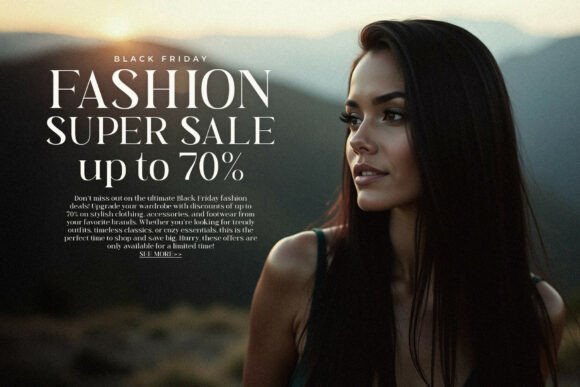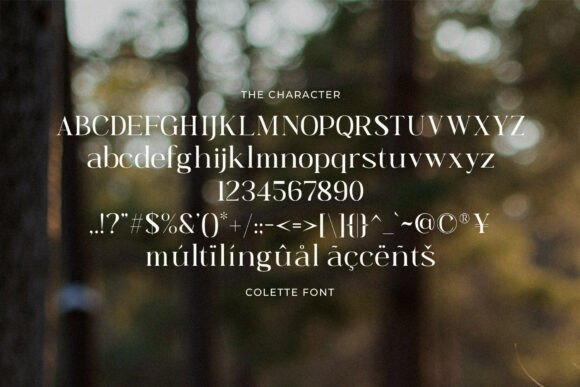
Colette Font: Elevate Your Design with Modern Elegance and Timeless Charm
In the world of typography, fonts play a crucial role in conveying the tone and personality of a brand or design. Among the numerous typefaces available, the Colette font stands out for its unique blend of modern sophistication and classic elegance. This beautiful serif typeface has been gaining popularity among designers and crafters for its ability to add a touch of refinement and professionalism to any project.
The Essence of Colette Font
The Colette font is a masterfully crafted serif typeface that exudes a sense of luxury and poise. Its delicate curves and subtle details create a perfect balance between classic and contemporary styles, making it an ideal choice for a wide range of design applications. Whether you’re working on a branding project, editorial layout, or luxurious design, Colette is sure to make a lasting impression.
Key Features of Colette Font
- Modern Elegance: Colette’s sleek and refined design makes it perfect for modern brands and designs that require a touch of sophistication.
- Timeless Charm: The font’s classic serif features and subtle details evoke a sense of nostalgia and timelessness, making it suitable for designs that require a sense of heritage or tradition.
- Delicate Curves: Colette’s curves are carefully crafted to create a sense of fluidity and movement, adding a touch of elegance to any design.
- Subtle Details: The font’s subtle details, such as the slight variations in line width and the carefully designed terminals, add a level of sophistication and refinement to the overall design.
Applications of Colette Font
Colette’s versatility makes it suitable for a wide range of design applications, including:
- Branding: Colette’s luxurious and sophisticated design makes it perfect for branding projects that require a high-end feel.
- Editorial Layouts: The font’s classic serif features and elegant curves make it suitable for editorial layouts, such as magazines, newspapers, and books.
- Luxurious Designs: Colette’s sophisticated design makes it ideal for luxurious designs, such as high-end fashion brands, jewelry, and luxury goods.
Benefits of Using Colette Font
Using Colette font in your design projects offers several benefits, including:
- Refinement and Professionalism: Colette adds a sense of refinement and professionalism to any design, making it perfect for high-end brands and designs.
- Versatility: The font’s versatility makes it suitable for a wide range of design applications, from branding to editorial layouts.
- Timeless Appeal: Colette’s classic serif features and subtle details ensure that it remains timeless and relevant, even as design trends evolve.
Tips for Using Colette Font
To get the most out of Colette font, consider the following tips:
- Pair with Simple Backgrounds: Colette’s elegant design works best with simple backgrounds that allow the font to take center stage.
- Experiment with Font Sizes: Colette’s versatility makes it suitable for a range of font sizes, from large headlines to smaller body text.
- Pay Attention to Line Spacing: To maintain a sense of elegance and sophistication, ensure that the line spacing is consistent and visually appealing.
In conclusion, the Colette font is a sophisticated serif typeface that offers a unique blend of modern elegance and timeless charm. Its delicate curves and subtle details create a perfect balance between classic and contemporary styles, making it an ideal choice for a wide range of design applications. Whether you’re a designer or crafter, Colette is sure to elevate your design and add a touch of refinement and professionalism to any project.